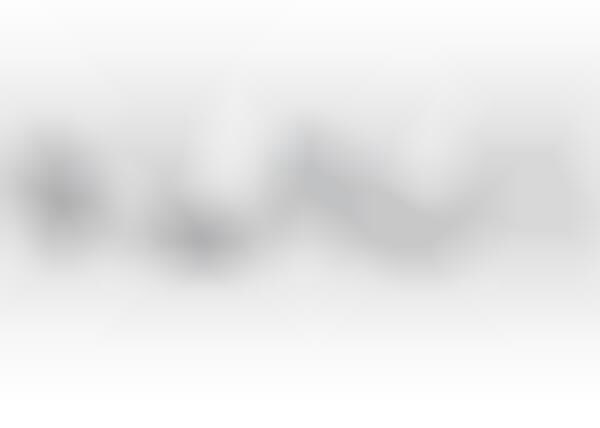
The Earring Typeface by Hjarta Smarta is proof that the art of typography is expanding every minute. As a previously understated form of design, typography is finally getting the attention it deserves. With revolutionary typefaces such as these, the Earring Typeface is leading a type revolution.
The adorable font is constructed of earrings. The little charms make for a whimsical alphabet that kicks Times New Roman's boring butt.
Implications - While an abundance of consideration is constantly put into the appearance of brand packaging and advertising campaigns, not enough attention is placed upon font selection. As fonts are one of the central ways that a product's message is conveyed to consumers, companies should consider utilizing fun, exciting fonts that differ from those of competitors.
- Typography Revolution
- The rise of innovative and visually appealing typefaces like the Earring Typeface creates opportunities for companies to differentiate their brand and messaging through unique font selections.
- Whimsical Typography
- The use of whimsical and unconventional fonts, such as the Earring Typeface, offers companies a chance to inject fun and creativity into their design and content, capturing consumer attention.
- Font Selection Importance
- With the recognition that fonts play a key role in communicating a product's message to consumers, businesses should prioritize font selection and opt for engaging and eye-catching designs.
- Graphic Design
- The graphic design industry can explore and adopt innovative typefaces like the Earring Typeface, enabling designers to create unique and visually captivating designs for brands and products.
- Advertising
- In the advertising industry, incorporating unconventional fonts, such as the Earring Typeface, can help advertisements stand out and effectively convey messages, making them more memorable to consumers.
- Packaging
- By using eye-catching and distinct typefaces like the Earring Typeface on product packaging, the packaging industry can attract consumers' attention, differentiate products, and enhance brand identity.